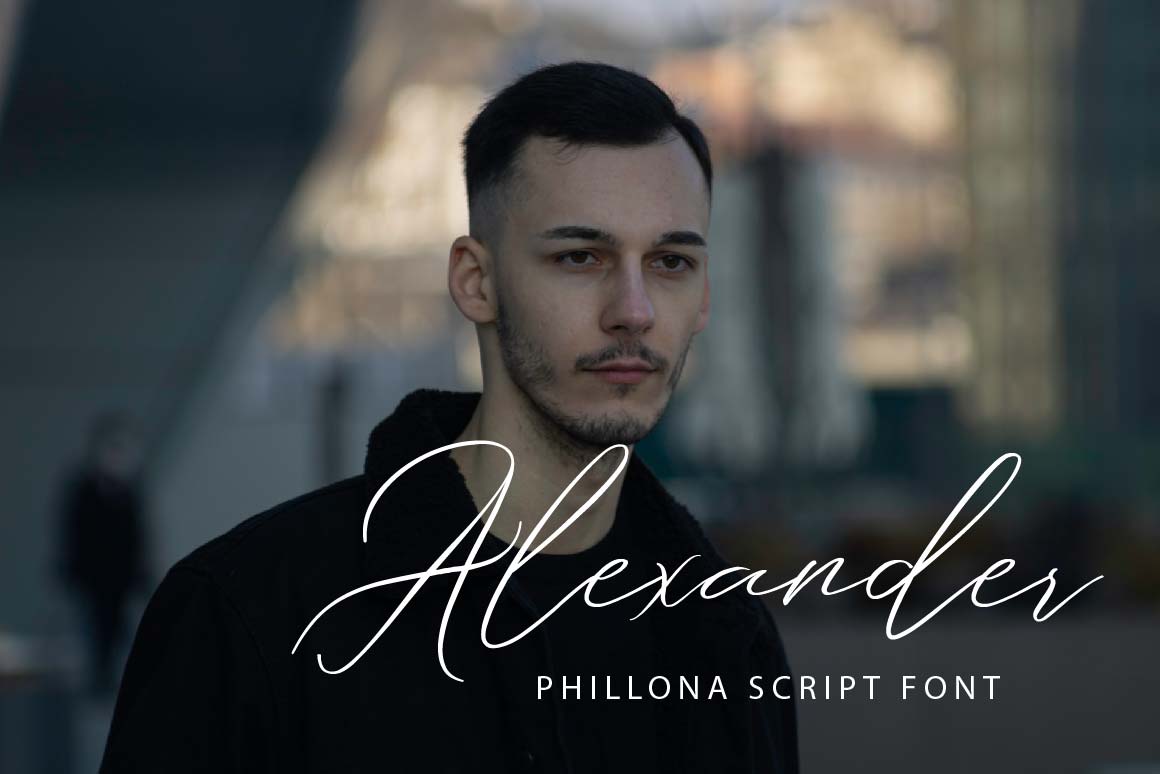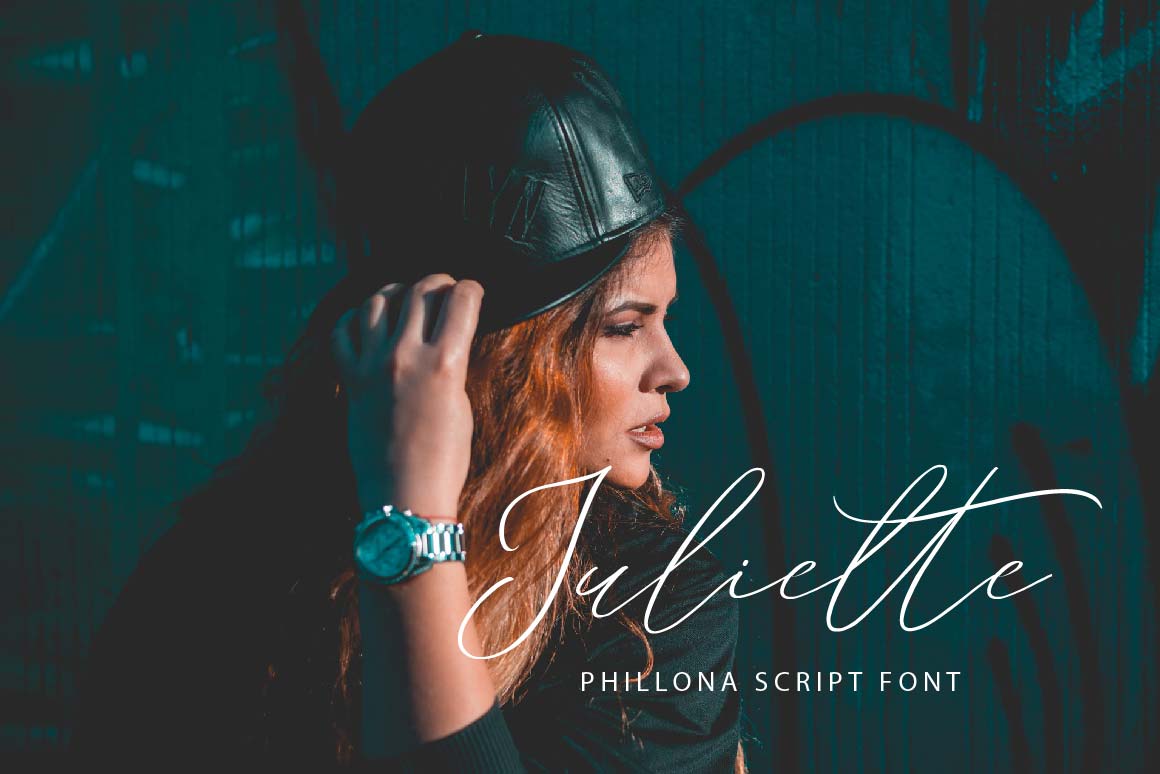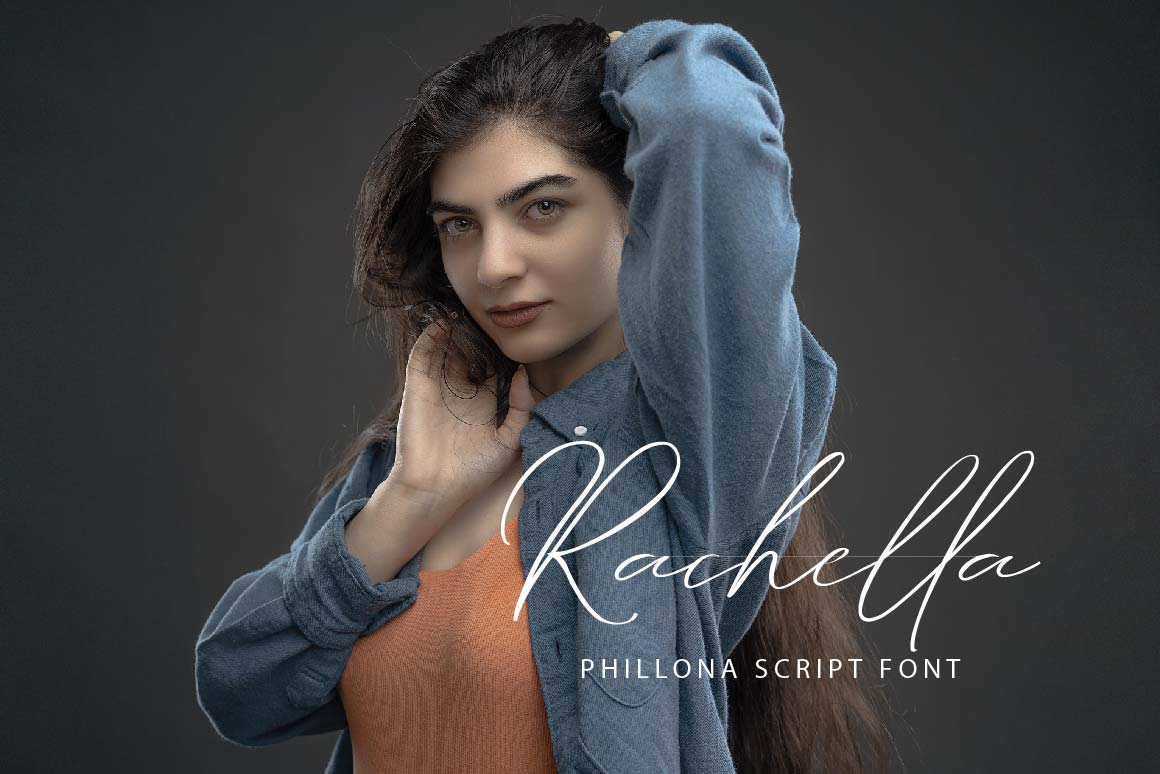
Phillona Font
Phillona Handwritten Font is a script font with an elegant and stylish curve. This beautiful font is very suitable for creating logotypes or brands, and you can also use it for various design projects such as movie titles, wedding invitations, book covers, watermark photos, quotes, and more. Add it to each of your creative ideas, and notice how it makes them stand out!
– Uppercase, Lowercase, Numeral & Punctuation
– Alternate Letters, Ligature & Swash/Tail